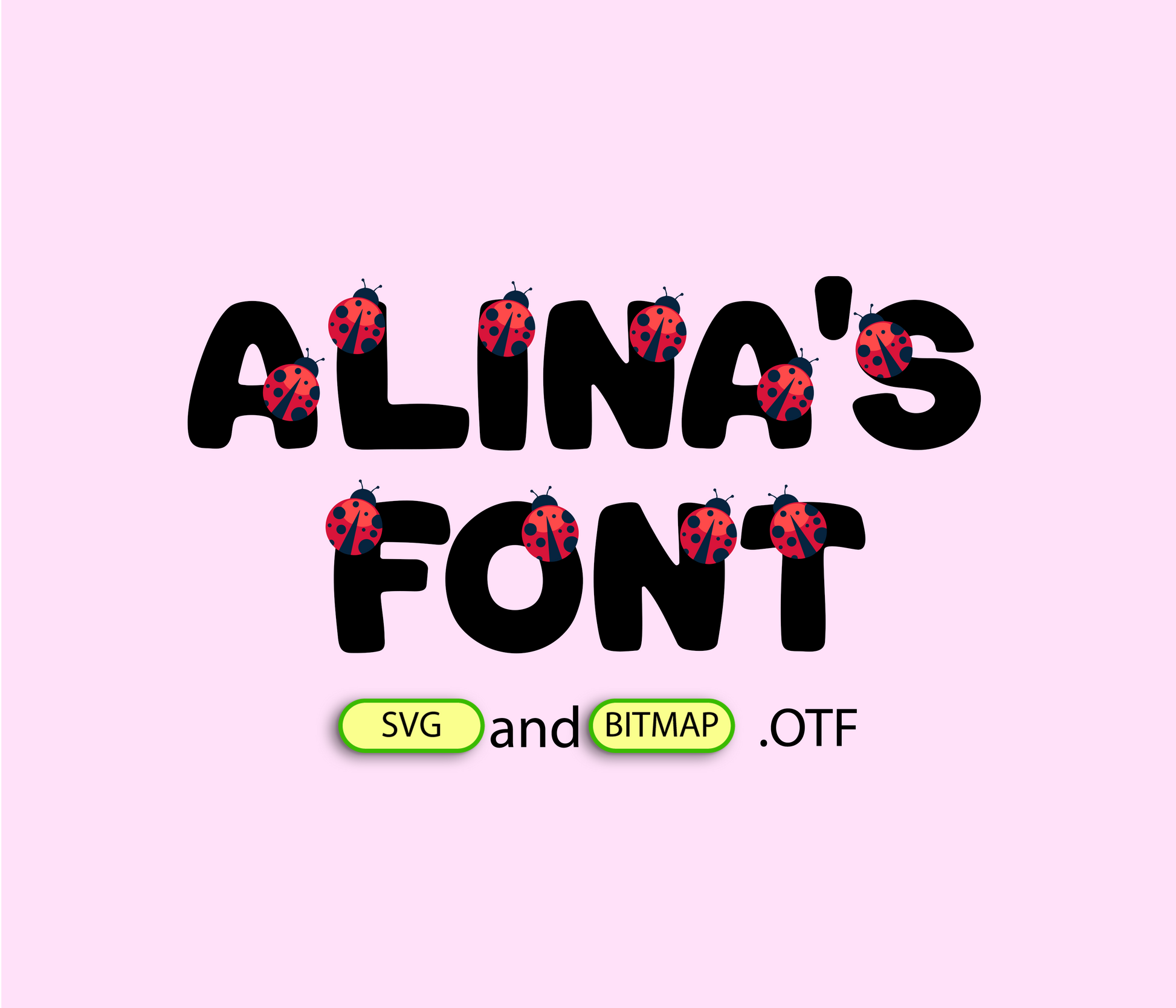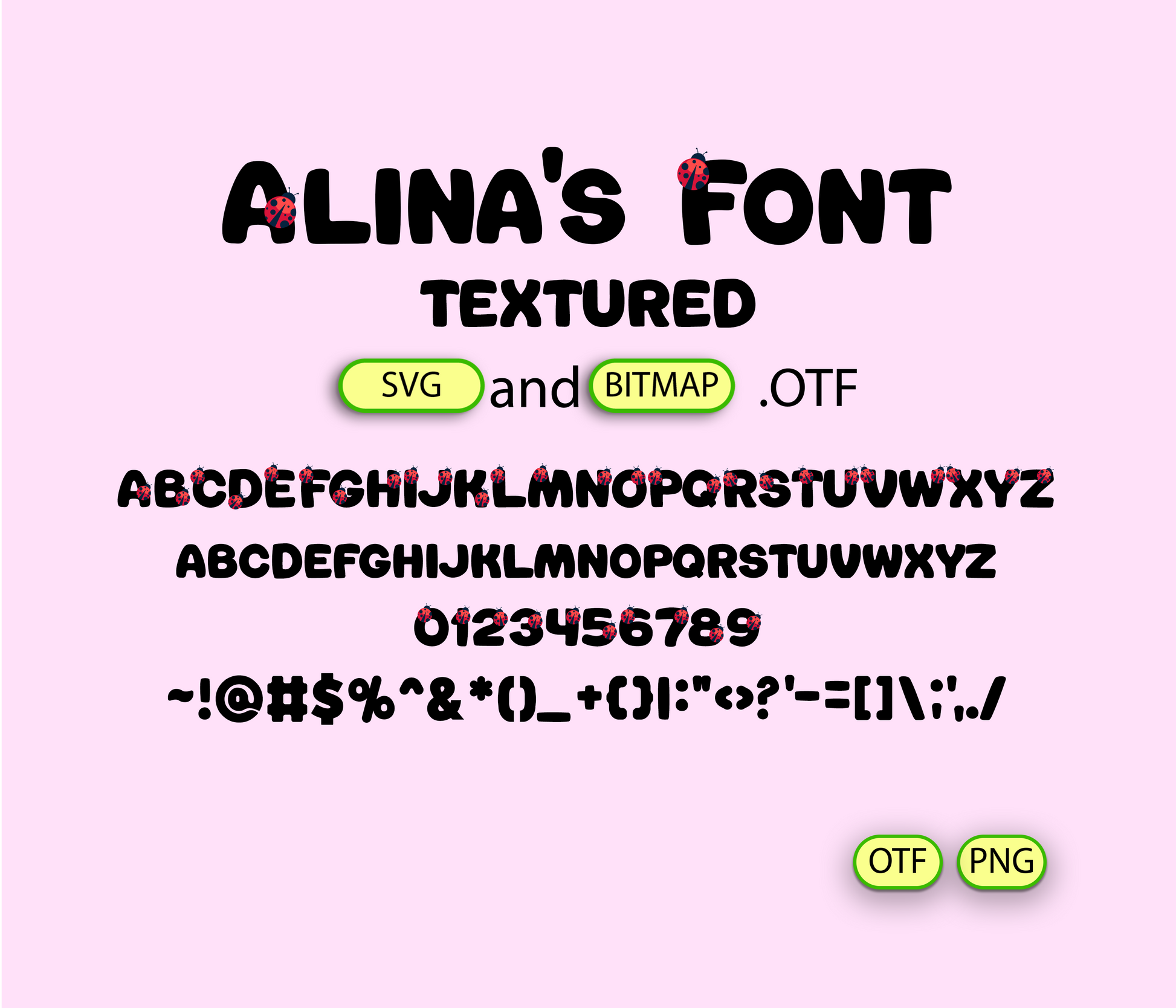
Ladybug Garden Font Textured
Ladybug Garden Font Textured Whimsical Nature Style
Step into the enchanting world of garden adventures with our Ladybug Garden font, capturing the essence of springtime wonder and playful outdoor exploration. Perfect for children's book designers, nature-themed event planners, garden enthusiasts, and whimsical brand creators, this font brings the charming, cheerful energy of spotted garden companions to your projects. Create delightful spring materials, nature-inspired merchandise, or joyful digital content with the sweet, optimistic spirit of backyard discoveries and garden magic.
Our Ladybug Garden font features playful, rounded shapes and cheerful characters reflecting the adorable yet vibrant aesthetic of garden creatures and springtime celebration. Ideal for:
- Children's Events: Create eye-catching birthday party invitations, garden-themed decorations, and outdoor activity materials for nature exploration gatherings
- Spring Design: Perfect for gardening center branding, spring festival promotions, and outdoor event signage that celebrates natural beauty and growth
- Digital Media: Enhance nature blogs, gardening websites, and outdoor social media with headers that express cheerful optimism and garden joy
- Entertainment Content: Add authentic character to children's nature games, outdoor education materials, and promotional content for garden-themed events
- Personal Projects: Bring garden charm to scrapbook pages, outdoor crafts, and artistic endeavors inspired by the aesthetics of backyard nature discovery